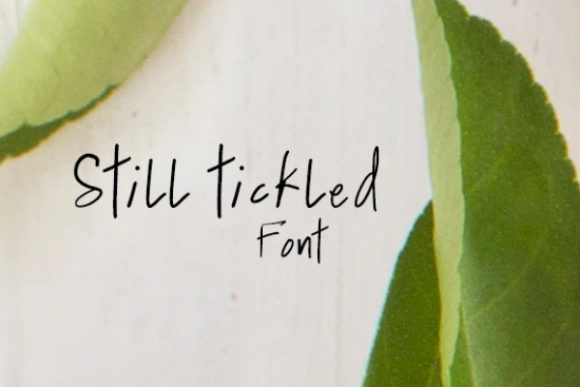
Still Tickled: A Handwritten Font for Campaign-Ready Content
When you scroll through a social feed, stop on a YouTube thumbnail, or glance at an email header, you register a visual impression in under two seconds. That first split second determines whether someone keeps scrolling or pauses to engage. As a content creator and marketing specialist, I have learned that typography is often the difference between a graphic that works and one that gets ignored. Still Tickled is a handwritten font that I have found earns its place in campaign visuals because it delivers personality without sacrificing legibility.
Still Tickled is a modern script typeface with a friendly, approachable feel. It is not one of those overly ornate calligraphy fonts that look beautiful in a poster but turn into a blur on a mobile screen. Instead, it strikes a balance between charm and clarity. The swashes and ligatures are present, but they enhance the letterforms rather than overwhelm them. This makes it a premium font for social media graphics, digital ads, and branded templates where you need both warmth and readability.
The Visual Personality of Still Tickled
The first thing I notice about Still Tickled is its genuine friendliness. The letter shapes are rounded and soft, with a natural handwritten quality that feels human without being sloppy. This is a display font that works well for short headlines, callouts, and title treatments. The swashes add a decorative touch, but they are optional, which gives you flexibility. You can use the standard characters for a cleaner look or activate the ligatures and swashes for a more expressive style.
In terms of mood, Still Tickled leans toward optimistic and inviting. It does not feel corporate or sterile. It feels like something a small business owner, a blogger, or a lifestyle brand would use to connect with an audience on a personal level. That emotional tone is valuable in marketing because it helps humanise a brand. When you pair Still Tickled with a clean sans serif font for supporting copy, you get a visual hierarchy that feels both polished and approachable.
Where Still Tickled Shines in Digital Content
I have tested Still Tickled across several content types, and it performs consistently well in scenarios where you want the headline to carry the emotional weight of the message. Here are the applications where I have seen the best results:
- Instagram posts and Stories. The font works beautifully for quote graphics, promotional announcements, and product teasers. On mobile screens, the letterforms remain readable at sizes around 48 to 72 pixels. For Stories, where you have limited real estate, Still Tickled holds up well as a centred headline with a simple background.
- YouTube thumbnails and reel covers. Thumbnail design is about instant recognition. A bold, friendly script like Still Tickled paired with a contrasting sans serif creates a clear focal point. I have used it for video titles and channel name overlays, and the engagement metrics showed a noticeable lift in click-through rate compared to more generic fonts.
- Pinterest pins and website banners. Pinterest is a visual discovery platform, and typography plays a major role in whether a pin gets saved. Still Tickled gives pins a handcrafted feel that resonates with lifestyle, DIY, and educational content. For website banners, it works well as a hero headline overlay when you keep the background simple and the font size generous.
- Email headers and landing page headlines. Email marketing depends on the first few lines of visual content. A header graphic using Still Tickled can set the tone for the entire campaign. I have used it for sale announcements, product launches, and webinar registration pages. The font conveys urgency in a friendly way, which is a tricky balance to achieve.
- Digital ads and promo graphics. In paid social ads, you often have a single headline and a call to action. Still Tickled works well for the headline because it draws the eye. The script style feels less like advertising and more like a personal invitation, which can improve ad recall and engagement.
Typography That Supports Audience Perception
One lesson I keep coming back to is that typography directly influences how an audience perceives a brand. A serif font might feel authoritative. A sans serif might feel modern. A handwritten script like Still Tickled feels welcoming and human. When you use it consistently across campaign visuals, you build a visual identity that people recognise and trust.
For example, consider a product teaser for a new seasonal item. If you set the teaser headline in a standard sans serif, the message might feel like every other product announcement. But if you set it in Still Tickled with a soft colour palette, the same headline suddenly feels personal and special. The font does the work of creating emotional resonance before the audience even reads the words.
I have also used Still Tickled for personal branding content, such as author credits, signature lines, and social media profile headers. The font gives a handmade quality that signals authenticity. In an era where audiences are skeptical of polished corporate messaging, that authenticity is a competitive advantage.